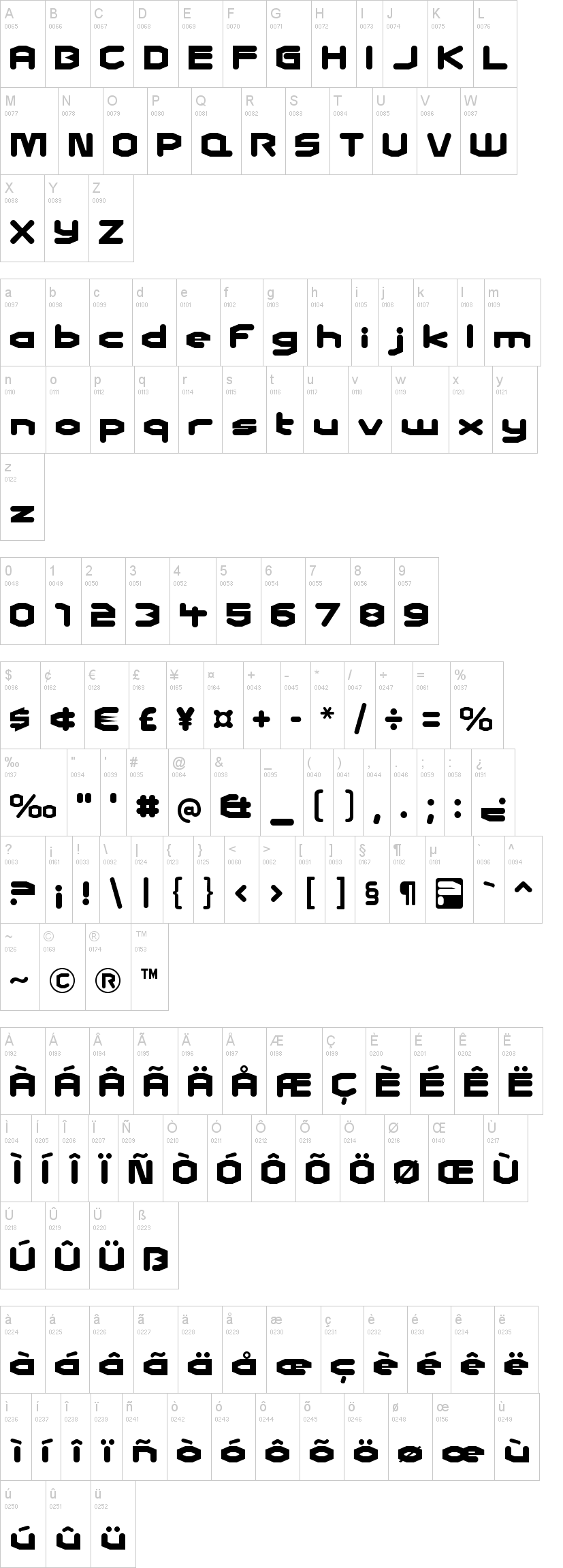
Шрифт Charles in Charge
Charles In Charge is an angular, methodical, spy-thriller headline font. Don't forget to read the files inside the zip for details. Updated in 2012.